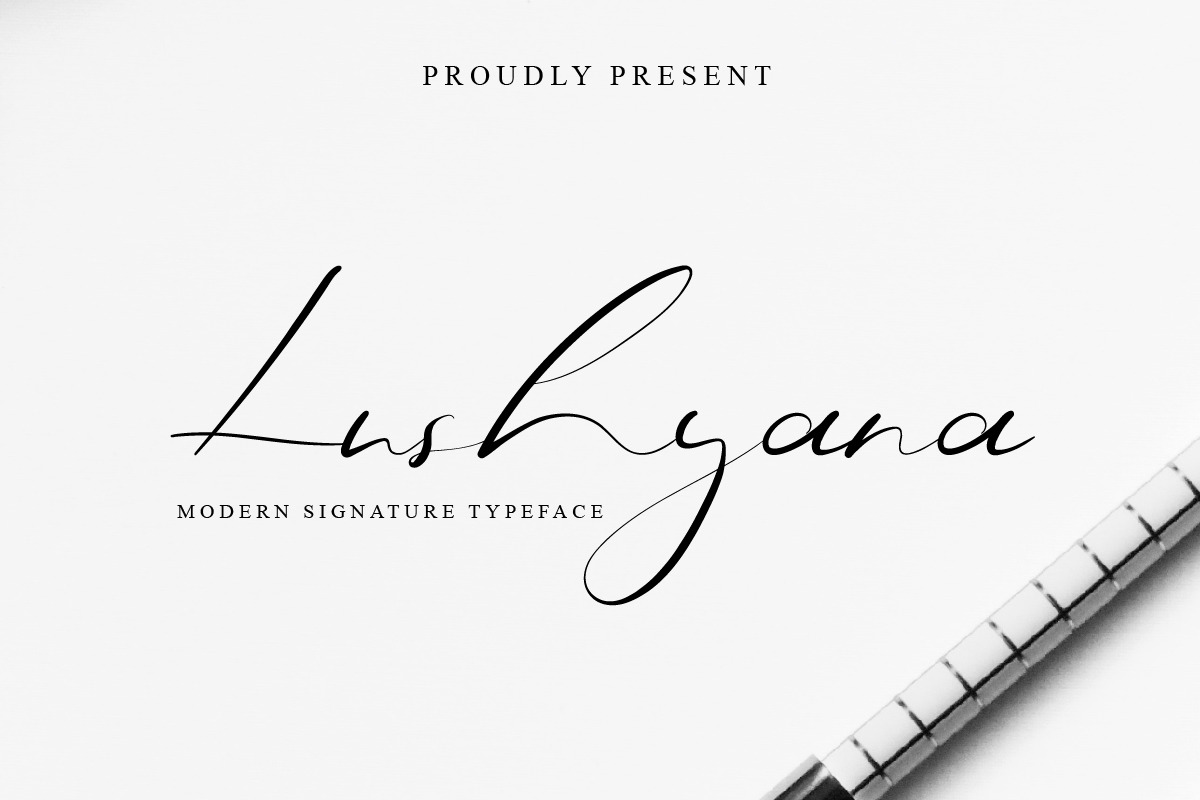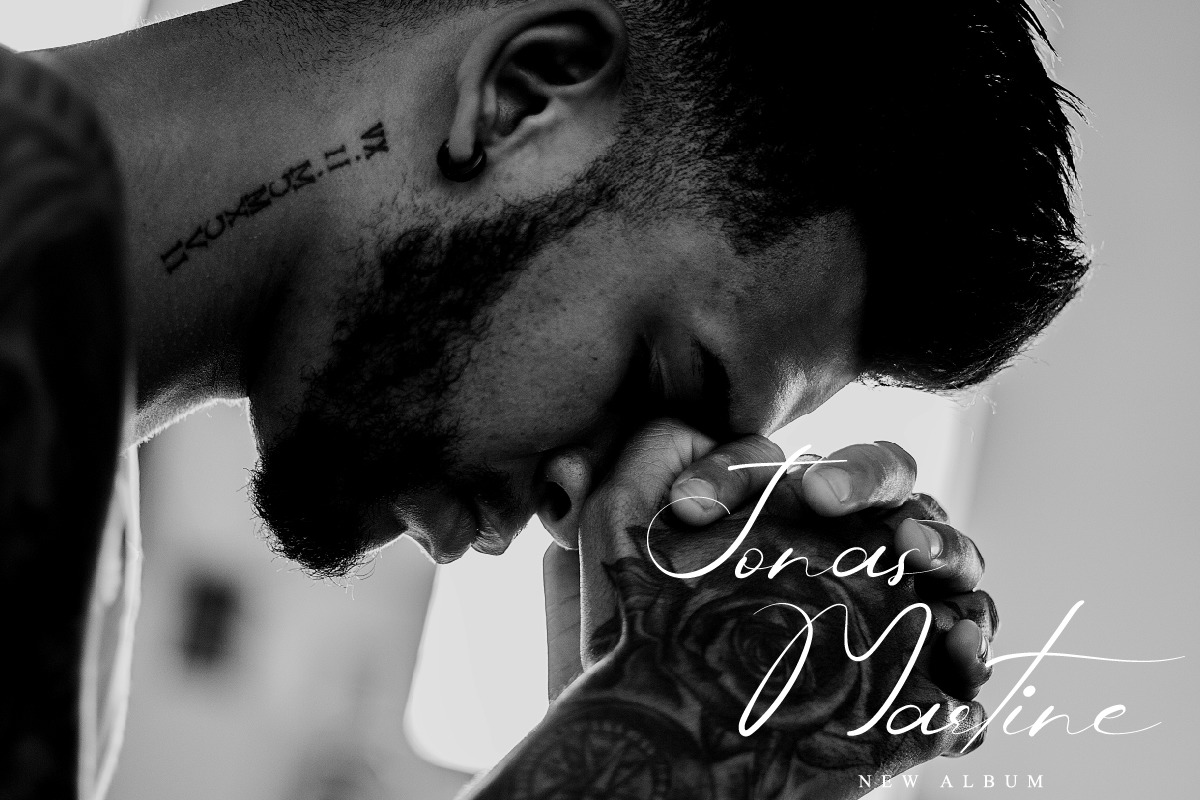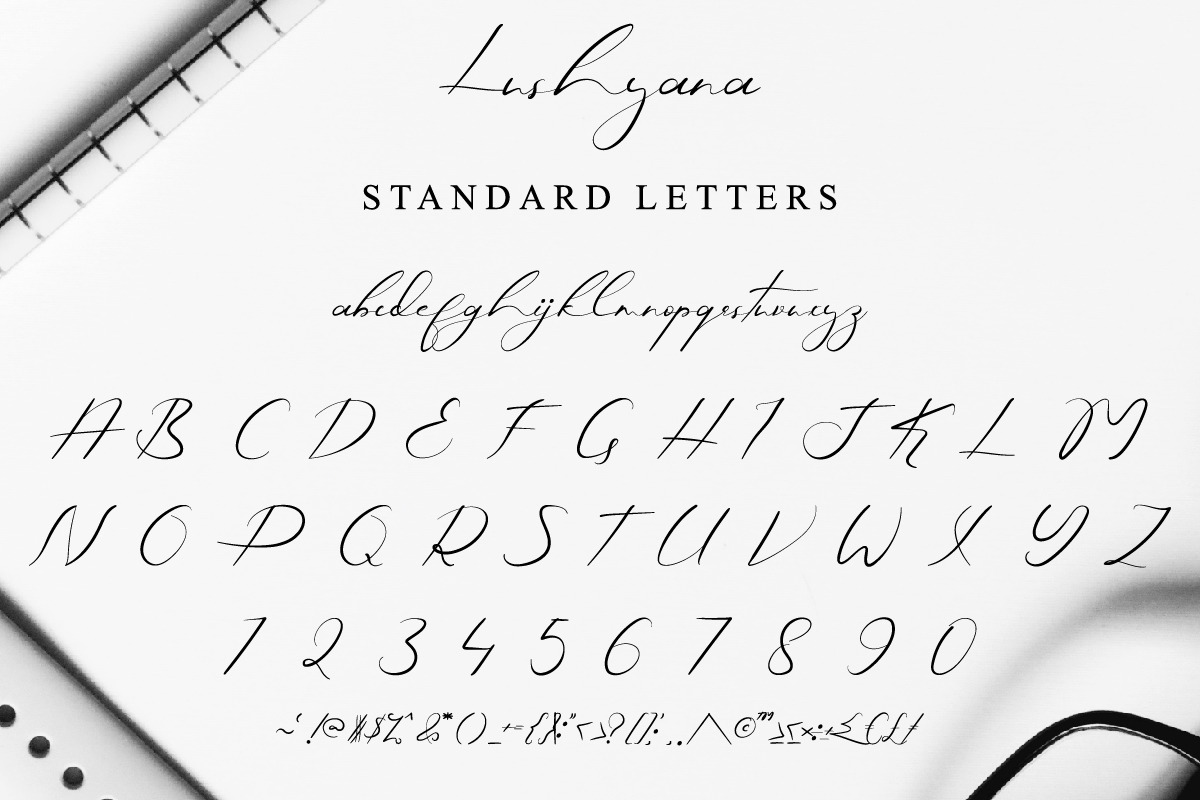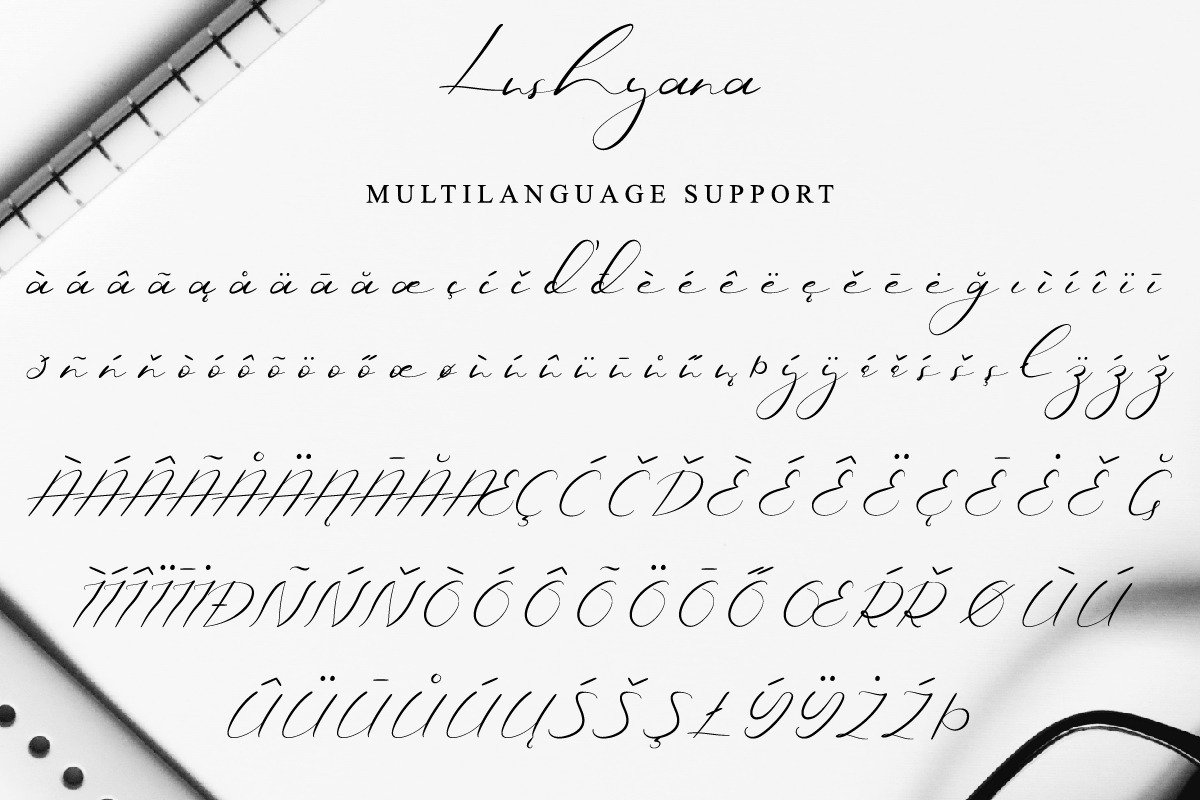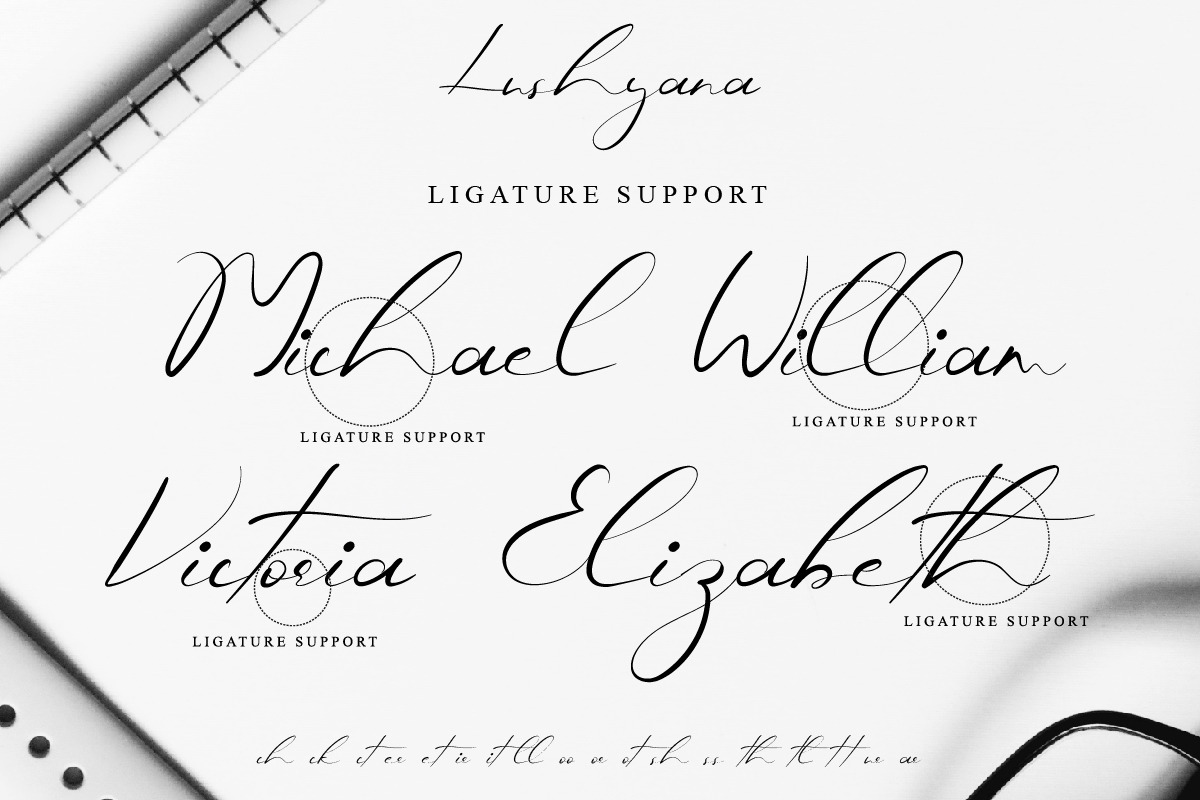
Lushyana Signature Font
Our newest font : Lushyana Signature Font
This is a hand writing signature font script, handcrafted from our Studio here in, Indonesia. The artists/designers of this beautiful tyeface is Widi and Sarah Suci.
Lushyana Signature Font is an exclusive handwritten script typeface with signature style. This font has a stunning characters set, perfectly managed with well spaced and kerning. The theme style of this font will elegant, vintage, stylish, sophisticated and classic signature style. You wont find any where else, the font like this
Lushyana Signature Font will be great for any projects (with exntended license) including : branding, logo, stationery, business card, signage, flyer, brochure etc. Almost all industries will be match for this typeface: wedding, events, real estate, architect, law firm, florist, gardening, makeup artist, travel, hotel, musician etc